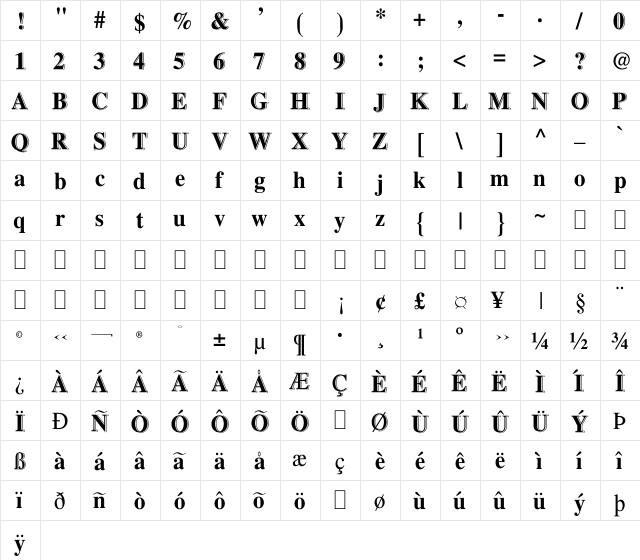
BD Journal Wide Regular
Design Context for BD Journal Wide Typeface
BD Journal Wide is a composed and adaptable typeface that performs quietly and consistently across a wide range of design contexts. Its bold stroke weight gives it real presence on the page.
Pro Tip: Pair BD Journal Wide with a font of contrasting weight or personality to build a more expressive typographic hierarchy.